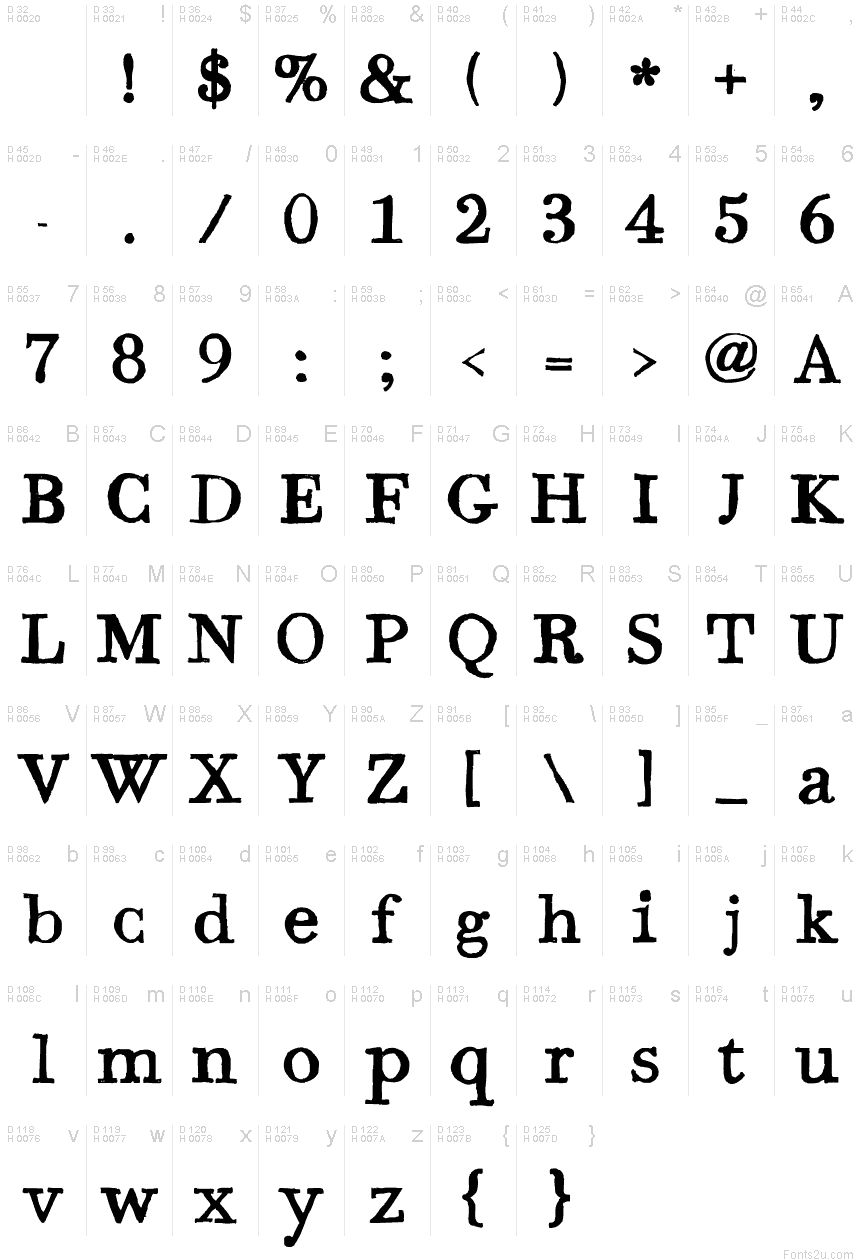
Bodoni Hand
Bodoni Hand font by Karate Graphics Ltd. is a free distorted serif typeface that takes the elegance of classic Bodoni and runs it through a slightly haunted, hand-inked filter. The letters look as if they’ve been stamped or pressed onto rough paper, with wobbly outlines and inky bumps that add tension and character. It feels both literary and unsteady—like a refined headline that’s been left out in the rain just long enough to get interesting.
Using Bodoni Hand, your titles instantly gain a moody, tactile edge that shines on book covers, zines, poster art, album artwork, dark-themed branding, and experimental packaging. This free font works beautifully when set large, letting the irregular edges and subtle distortion stay visible. Pair it with a clean, unobtrusive sans serif for body copy to keep layouts readable while Bodoni Hand handles the drama.